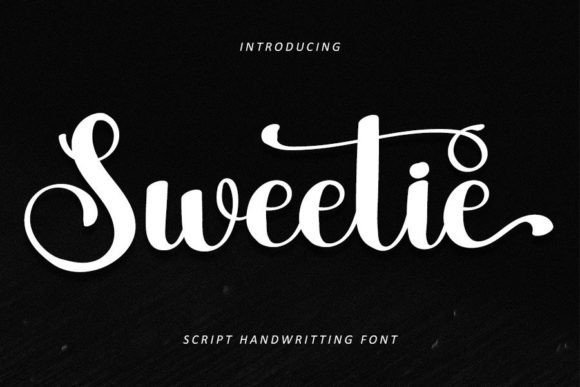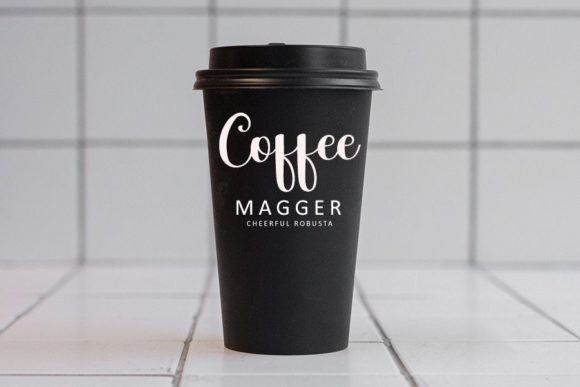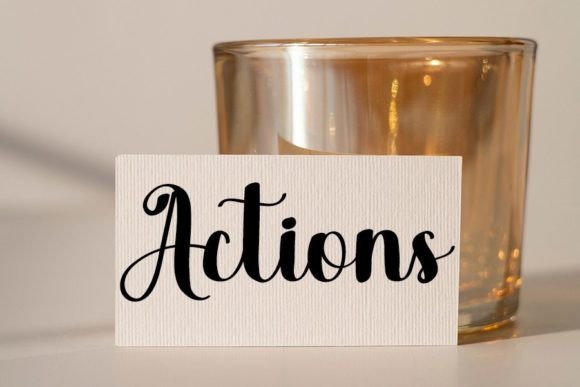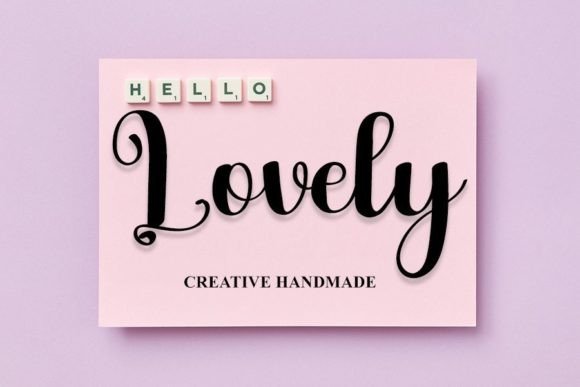
About Sweetie Font
Sweetie is a stylish handwritten font that exudes a contemporary atmosphere and impeccable form, drawing inspiration from timeless classic calligraphy. With a balanced and varied design, this font is meticulously crafted to enhance the beauty of your projects, adding a touch of sophistication to your designs.
The contemporary vibe of Sweetie sets it apart, making it a perfect choice for a variety of projects. Its impeccable form ensures a polished and refined appearance, making it suitable for both formal and creative applications. Whether you’re designing invitations, logos, or any other visual element, Sweetie is tailored to elevate the aesthetic of your projects.
Inspired by timeless classic calligraphy, Sweetie embodies the grace and charm of traditional script while infusing a modern twist. The result is a font that strikes a harmonious balance between the past and present, making it a versatile option for those seeking a combination of classic elegance and contemporary flair.
The varied and balanced nature of Sweetie allows it to adapt seamlessly to different design elements. From branding and logos to invitations and creative projects, this font adds a distinctive touch that captures attention and communicates a sense of style.
In essence, Sweetie is more than just a font; it’s a design element that brings stylishness, contemporary flair, and a touch of timeless classic calligraphy to your projects. Its impeccable form ensures a level of sophistication that resonates across various design applications. With PUA encoding, accessing the font’s amazing glyphs and ligatures is a seamless experience, empowering designers to create visually stunning and unique designs.